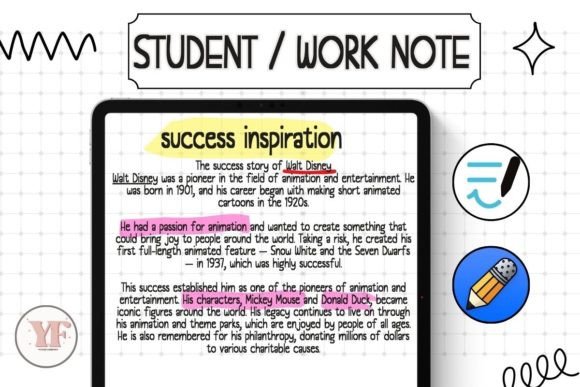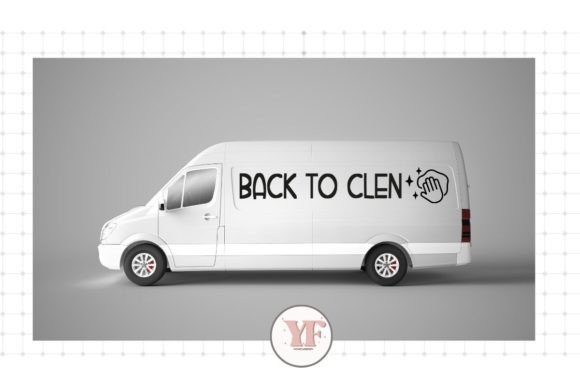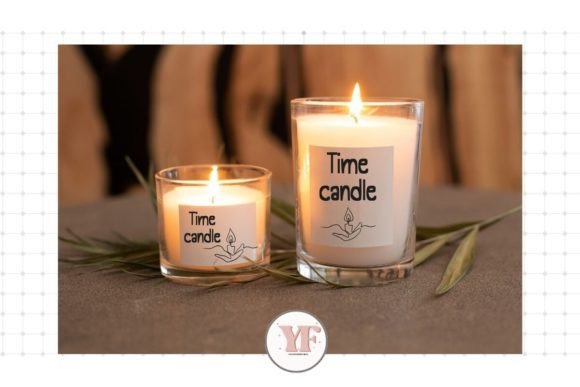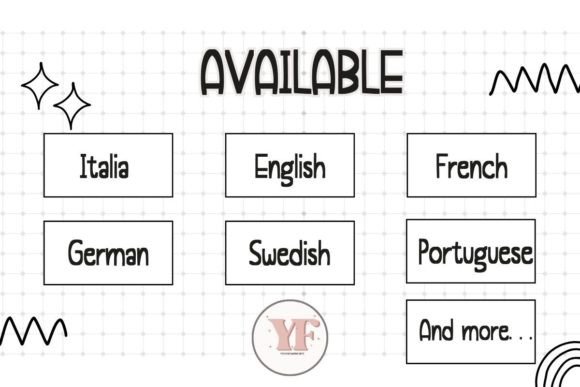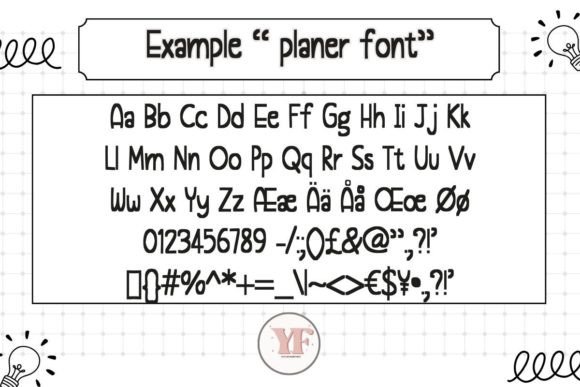
Introduction to Planer Font
There’s something magical about scribbling down ideas in a notebook, the scratch of the pen on paper, the imperfections that make it uniquely yours. For designers, this tactile experience is a treasure trove of inspiration, and the Planer Font captures that essence beautifully. This striking font is a design resource that lets you infuse your work with a personal touch, perfect for creative projects that demand a high-quality, handwritten feel.
With its transparent background and free download, the Planer Font is an excellent addition to any designer’s toolkit. Its whimsical imperfections make it a standout choice for artistic study notes, work memos, and even logos that require a touch of personality. Whether you’re working on a new design project or simply want to enhance your workflow engagement, the Planer Font is an invaluable asset that’s sure to elevate your work.
Key Features of Planer Font
- Transparent background: Planer Font features a transparent background, making it ideal for creative projects that require a clean and minimalist design.
- High-quality design resource: This font is a high-quality design resource that is perfect for designers, artists, and anyone looking for a unique and creative font.
- High-resolution design: Planer Font is designed at 300 DPI, making it perfect for high-resolution printing and digital design projects.
- Unique and creative design: Planer Font features a unique and creative design that is perfect for adding a touch of personality to any creative project.
- Perfect for creative projects: Planer Font is a versatile font that is perfect for use in a variety of creative projects, including logos, branding, and graphic design.
Honest Review: Planer Font
As a designer, I’m always on the lookout for high-quality design resources to elevate my creative projects. Recently, I stumbled upon the Planer Font, and I’m excited to share my honest review.
- ✨ Unique and modern aesthetic that’s perfect for contemporary designs
- ✨ High-quality vectors that can be easily scaled without losing clarity
- ✨ Transparent background option, allowing for seamless integration into various design environments
- ⚠️ Limited font combinations available, which might not cater to all design requirements
- ⚠️ Some users may find the font’s boldness overwhelming, depending on the project’s tone
Overall, I’m impressed with the Planer Font’s potential to add a touch of modernity to any design. While it may not be perfect, its strengths outweigh its limitations, making it a valuable addition to my design resource library.
Planer Font Overview
Planer Font is a free download design resource that offers a high-quality, transparent background for your creative projects. This versatile font can be used in a variety of applications, from graphic design to digital art.
Tips for Getting the Most Out of Planer Font
To get the most out of Planer Font, experiment with different font sizes, colors, and styles to find the perfect combination for your project. You can also use Planer Font in conjunction with other design elements to create a unique and eye-catching look.
Common Use Cases for Planer Font
Planer Font is commonly used in graphic design, digital art, and creative projects that require a high-quality, transparent background. It’s also a great resource for designers who need a versatile font that can be used across multiple platforms.